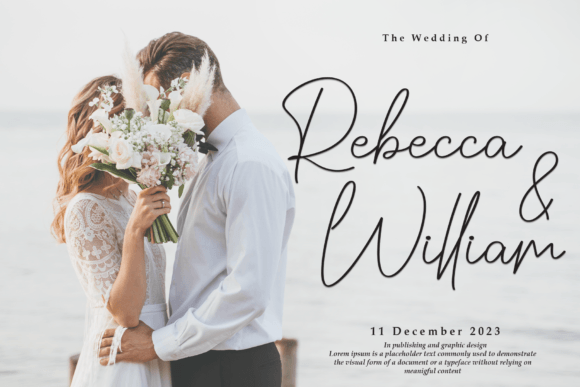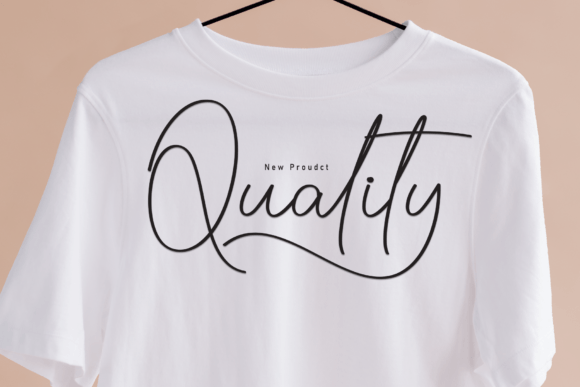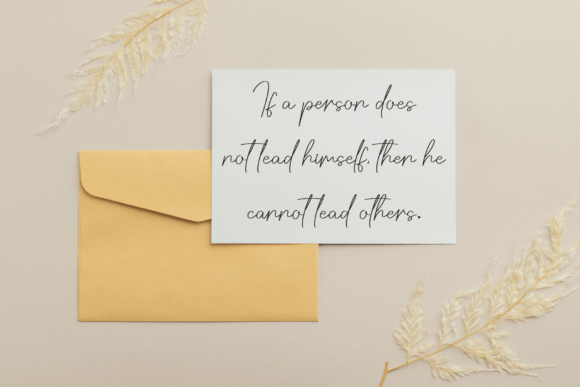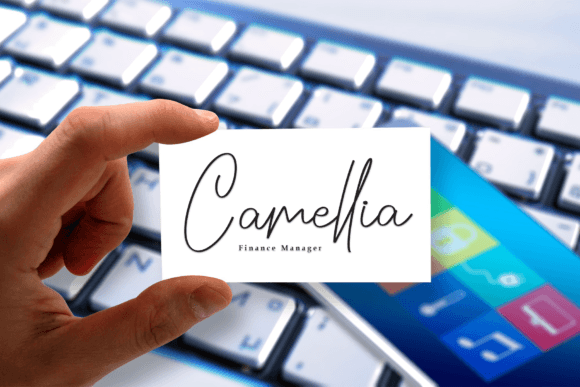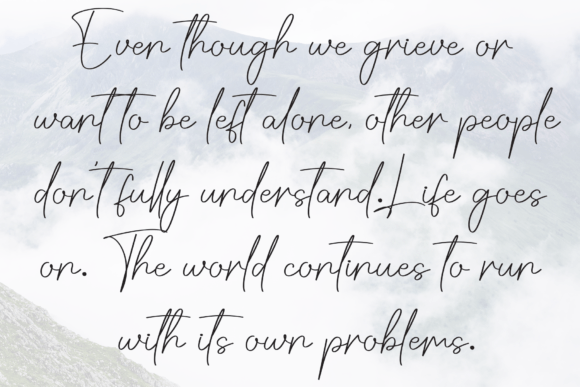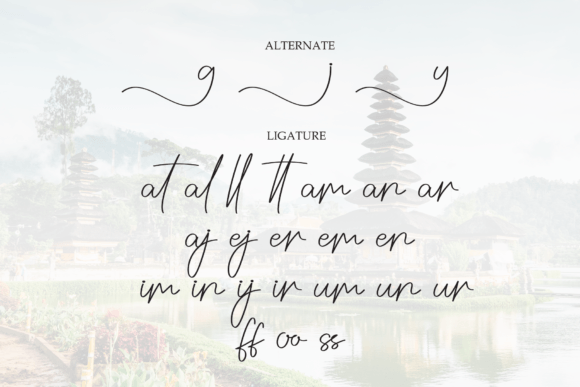
Culturally Font: Elevate Your Designs with Unique and Creative Typography
Are you tired of using the same old fonts in your designs? Do you want to add a touch of personality and style to your projects? Look no further than Culturally Font, the latest and most creative font to hit the market. Our font is designed to provide you with an extraordinary experience, perfect for a wide range of applications, from wall displays to wedding invitations, social media posts, logos, advertisements, product packaging, and more.
What Sets Culturally Font Apart
Our font is not just another ordinary font. It’s a game-changer, designed to provide you with the latest style letters that will take your designs to the next level. With Culturally Font, you’ll have access to a unique and creative typography that will make your projects stand out from the crowd. Whether you’re a designer, crafter, or DIY enthusiast, our font is perfect for anyone looking to add a touch of elegance and sophistication to their work.
Culturally Font is versatile and can be used in a variety of projects, including:
- Wall displays and signage
- Social media posts and logos
- Advertisements and marketing materials
- Product packaging and design
- Labels and photography
- Watermarks and invitations
- Stationery and paper crafts
With Culturally Font, the possibilities are endless. You can use it to create stunning designs, add a personal touch to your projects, or simply to enhance your brand’s visual identity.
Our font is designed to be easy to use and accessible, even for those who are new to design. With Culturally Font, you’ll have everything you need to create stunning designs and take your projects to the next level.
Why Choose Culturally Font?
There are many reasons why you should choose Culturally Font for your design needs. Here are just a few:
- Unique and creative typography
- High-quality and versatile font
- Easy to use and accessible
- Perfect for a wide range of applications
In conclusion, Culturally Font is the perfect choice for designers, crafters, and DIY enthusiasts looking to add a touch of personality and style to their projects. With its unique and creative typography, versatility, and ease of use, our font is sure to take your designs to the next level. So why wait? Get Culturally Font today and experience the difference for yourself.